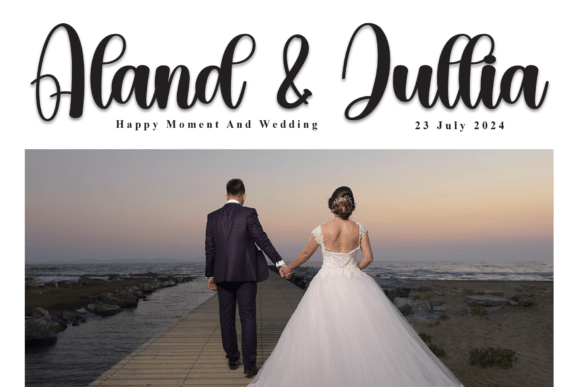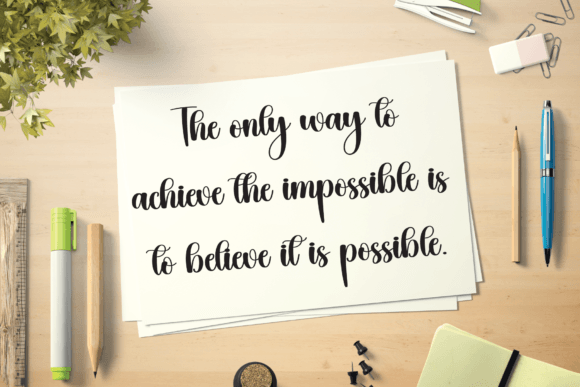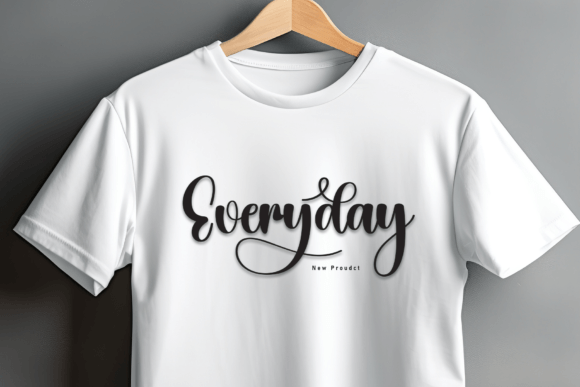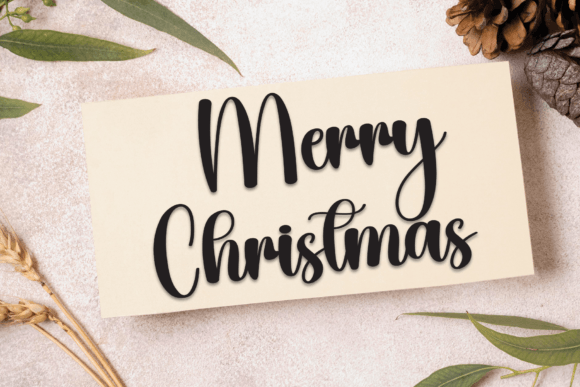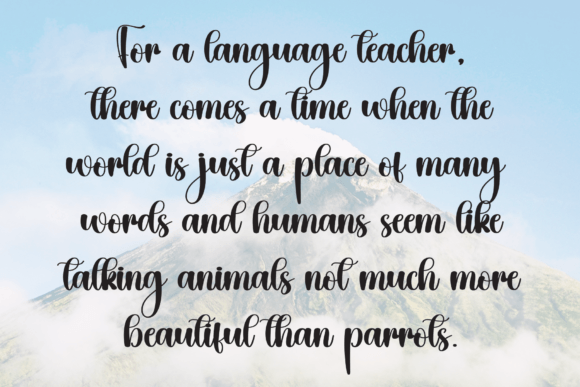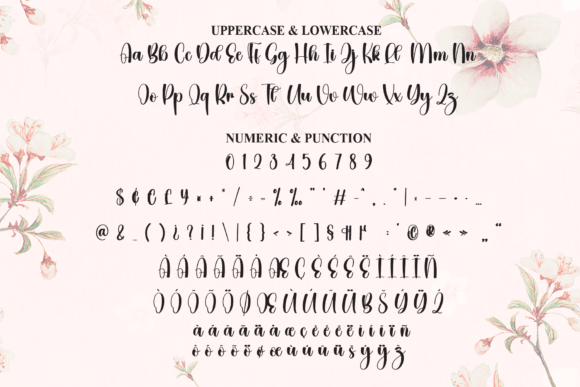
Introducing Calya Font: The Bold and Confident Handwritten Font
Are you looking for a font that can add a personal touch to your designs? Look no further than Calya Font. This bold, handwritten font is designed to make a statement with its clear, thick letters that exude confidence and strength. In this article, we’ll dive into the features and benefits of Calya Font, and explore how it can elevate your designs.
The Characteristics of Calya Font
Calya Font is a unique and eye-catching font that is characterized by its bold and confident style. Its clear, thick letters are easy to read and give your text a lively and personal touch. The font is perfect for designers and crafters who want to add a touch of personality to their work. Whether you’re creating a logo, a poster, or a social media graphic, Calya Font is sure to make your text stand out.
The Benefits of Using Calya Font
So why choose Calya Font for your designs? Here are just a few benefits of using this amazing font:
- Confidence and Strength: Calya Font’s bold and confident style is perfect for making a statement. Its clear, thick letters give your text a strong and assertive presence that demands attention.
- Personal Touch: Calya Font’s handwritten style adds a personal touch to your designs, making them feel more approachable and relatable.
- Versatility: Calya Font is versatile and can be used for a wide range of design projects, from logos and posters to social media graphics and more.
- Easy to Read: Despite its bold style, Calya Font is easy to read, making it perfect for use in body text as well as headlines.
Who Can Benefit from Calya Font?
Calya Font is perfect for a wide range of designers and crafters, including:
- Graphic Designers: If you’re a graphic designer looking for a bold and confident font to add to your arsenal, Calya Font is a great choice.
- Crafters: If you’re a crafter who loves to create handmade cards, gift tags, and other paper crafts, Calya Font is a great choice for adding a personal touch to your work.
- Social Media Managers: If you’re a social media manager looking for a font that can help your brand stand out on social media, Calya Font is a great choice.
How to Use Calya Font in Your Designs
Using Calya Font in your designs is easy. Here are a few tips to get you started:
- Pair it with a Simple Background: Calya Font is bold and confident, so it’s best paired with a simple background that won’t compete with the text.
- Experiment with Colors: Calya Font looks great in a wide range of colors, so don’t be afraid to experiment and find the perfect color for your design.
- Use it for Headlines and Body Text: Calya Font is easy to read, making it perfect for use in both headlines and body text.
Calya Font is a bold, handwritten font that looks strong and confident. Its clear, thick letters give your text a lively and personal touch that’s perfect for a wide range of design projects. Whether you’re a graphic designer, crafter, or social media manager, Calya Font is a great choice for adding a touch of personality to your work. So why not give it a try and see how it can elevate your designs?
- What is Calya Font?: Calya Font is a bold, handwritten font that is designed to make a statement with its clear, thick letters.
- Is Calya Font easy to read?: Yes, Calya Font is easy to read, making it perfect for use in both headlines and body text.